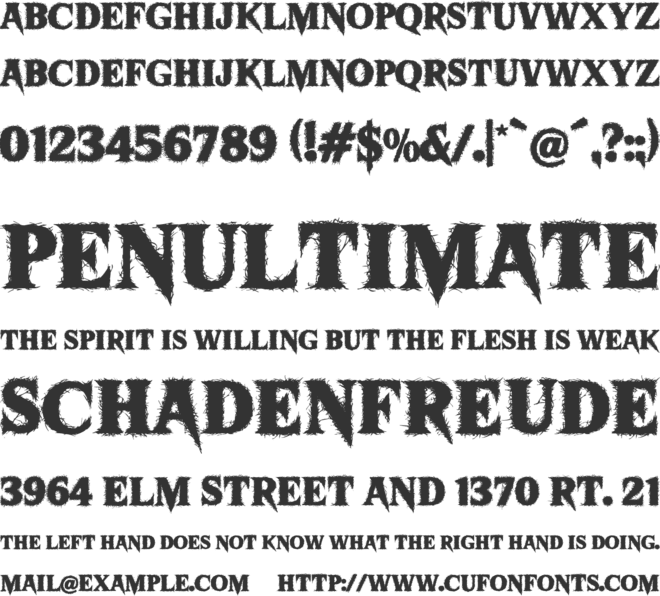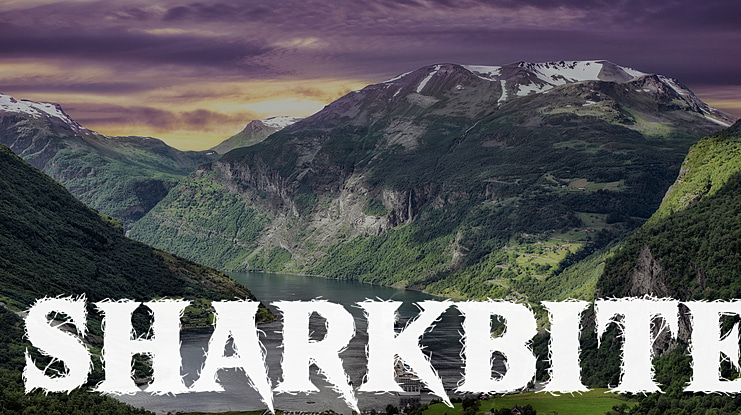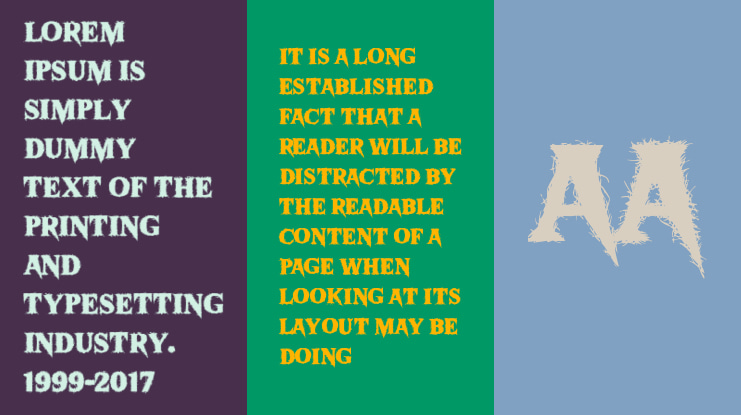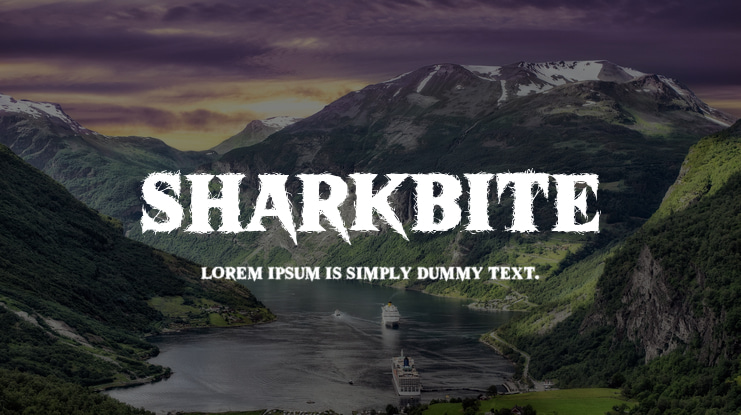
Sharkbite Font Family
About this font:
Sharkbite is the face of fierce and disorder. The typeface for your rock metal attitude. Our fonts are proven contagious so let the creativity spread on!